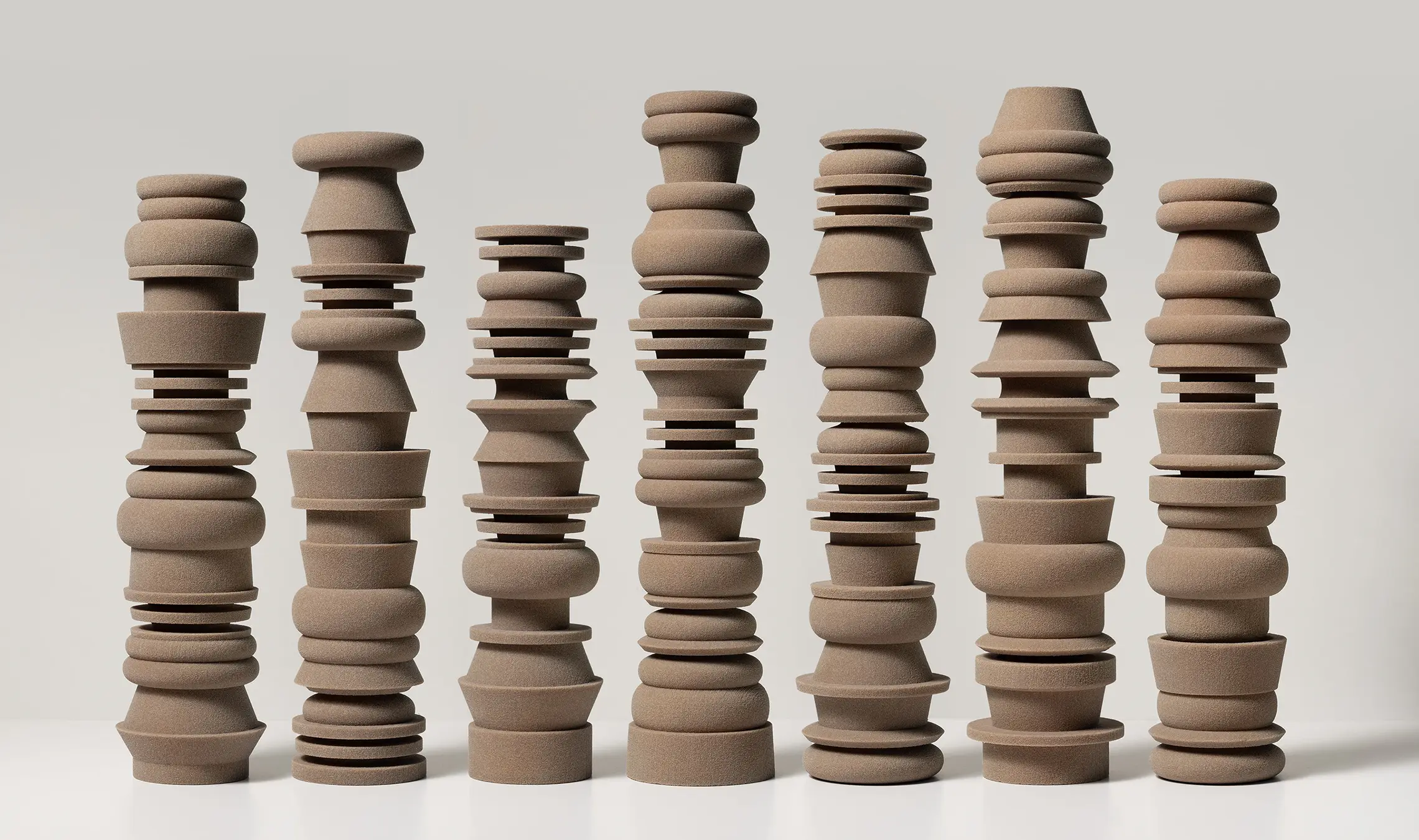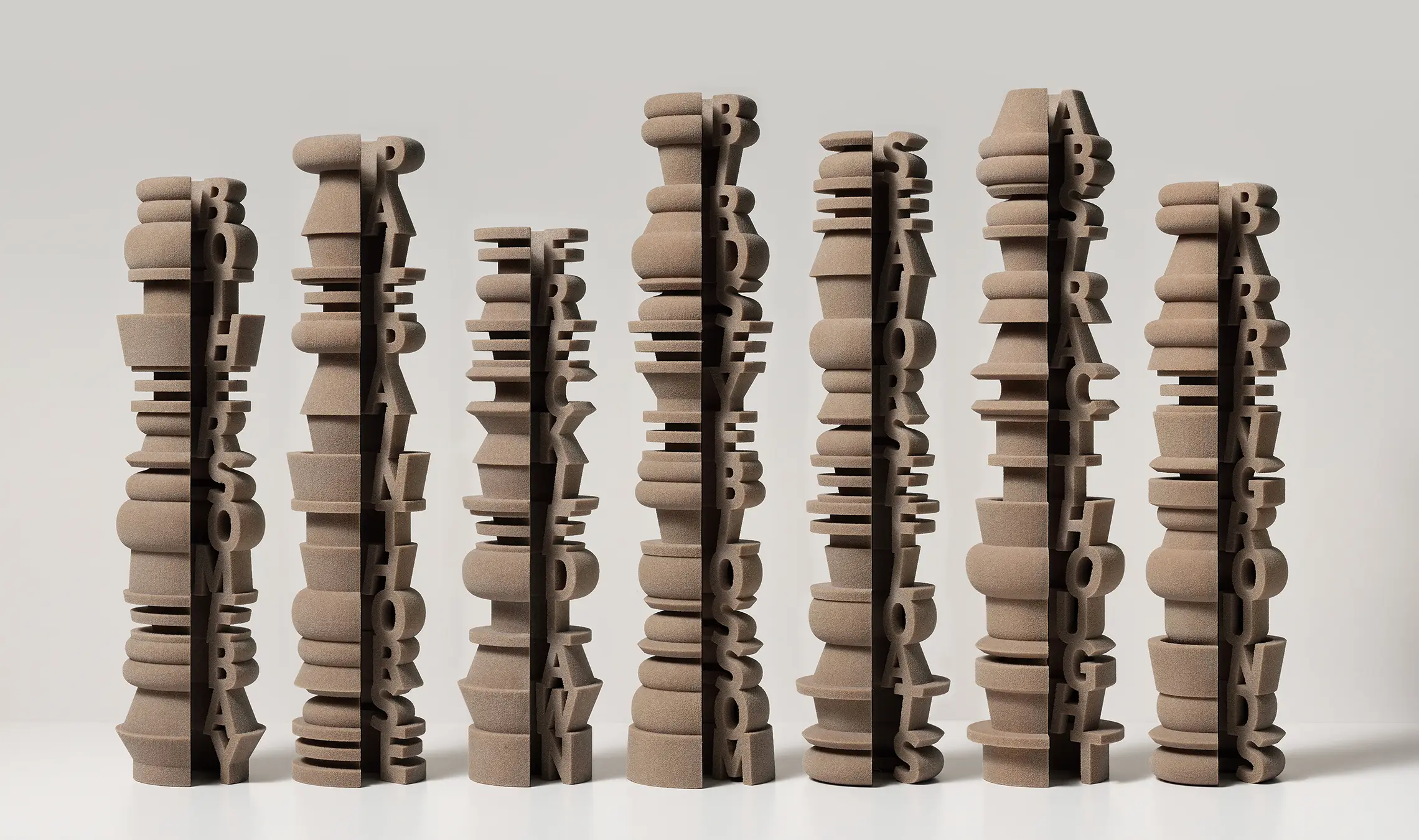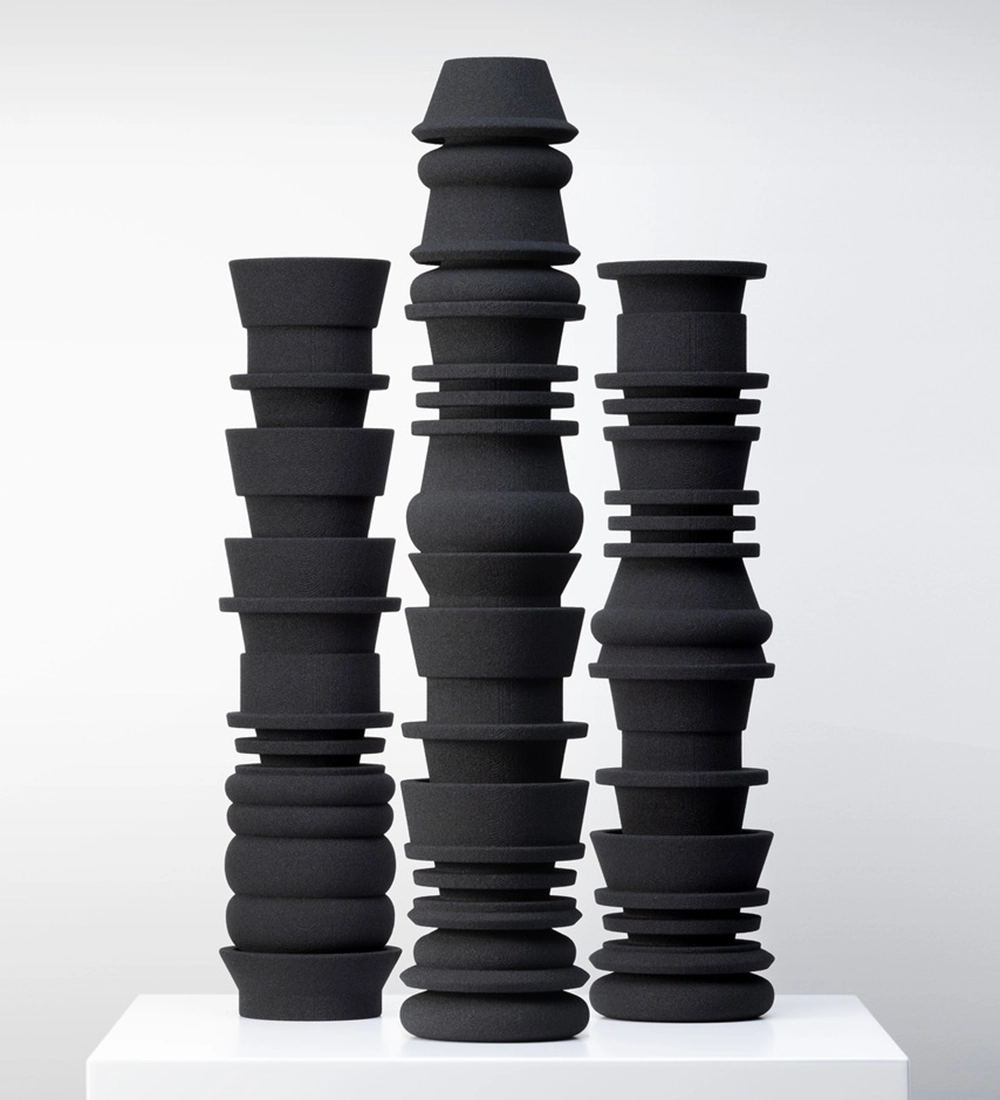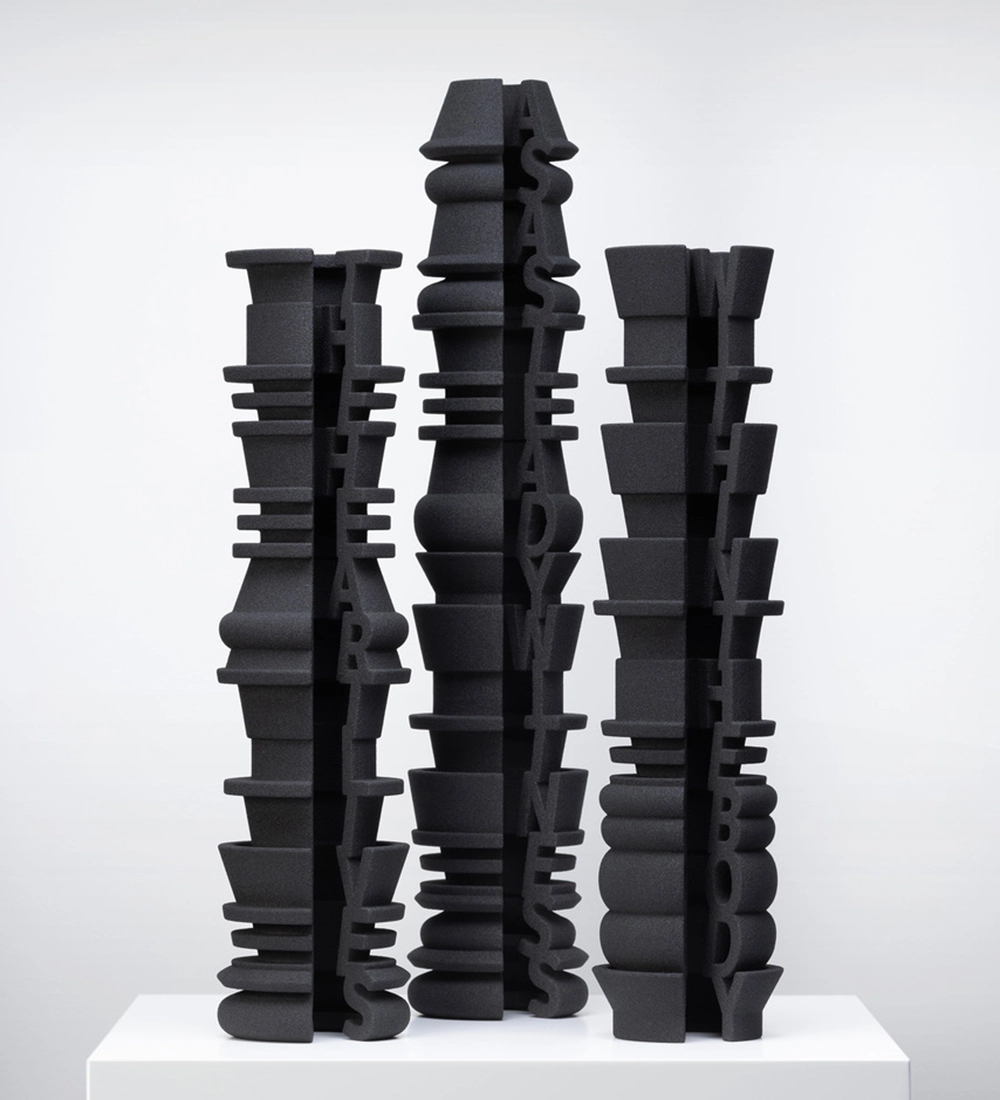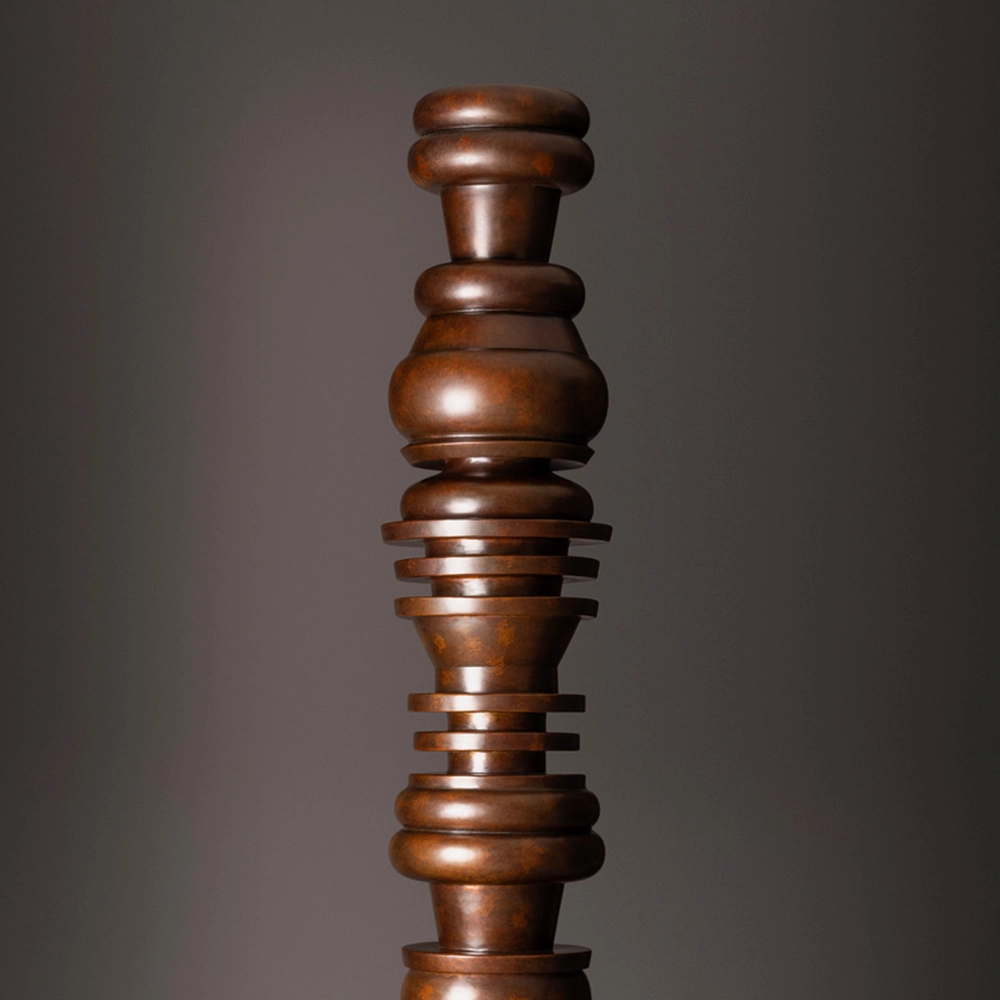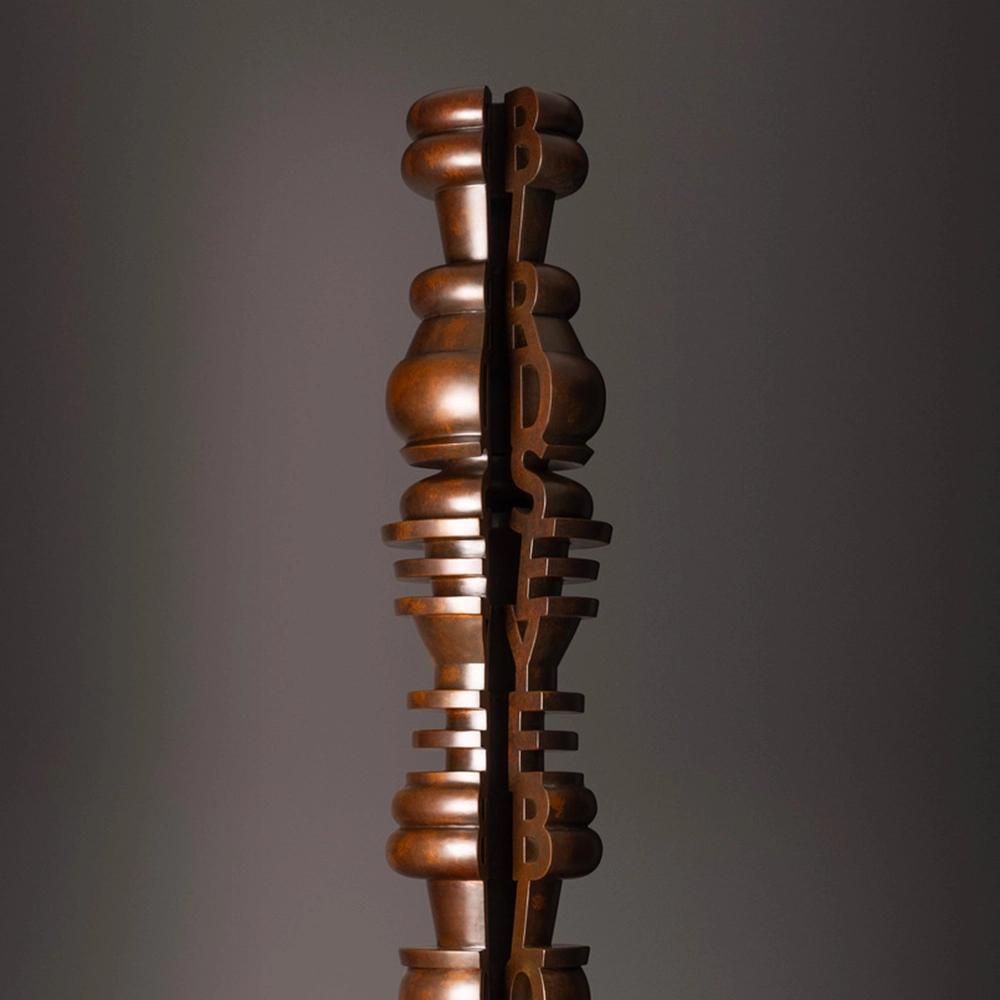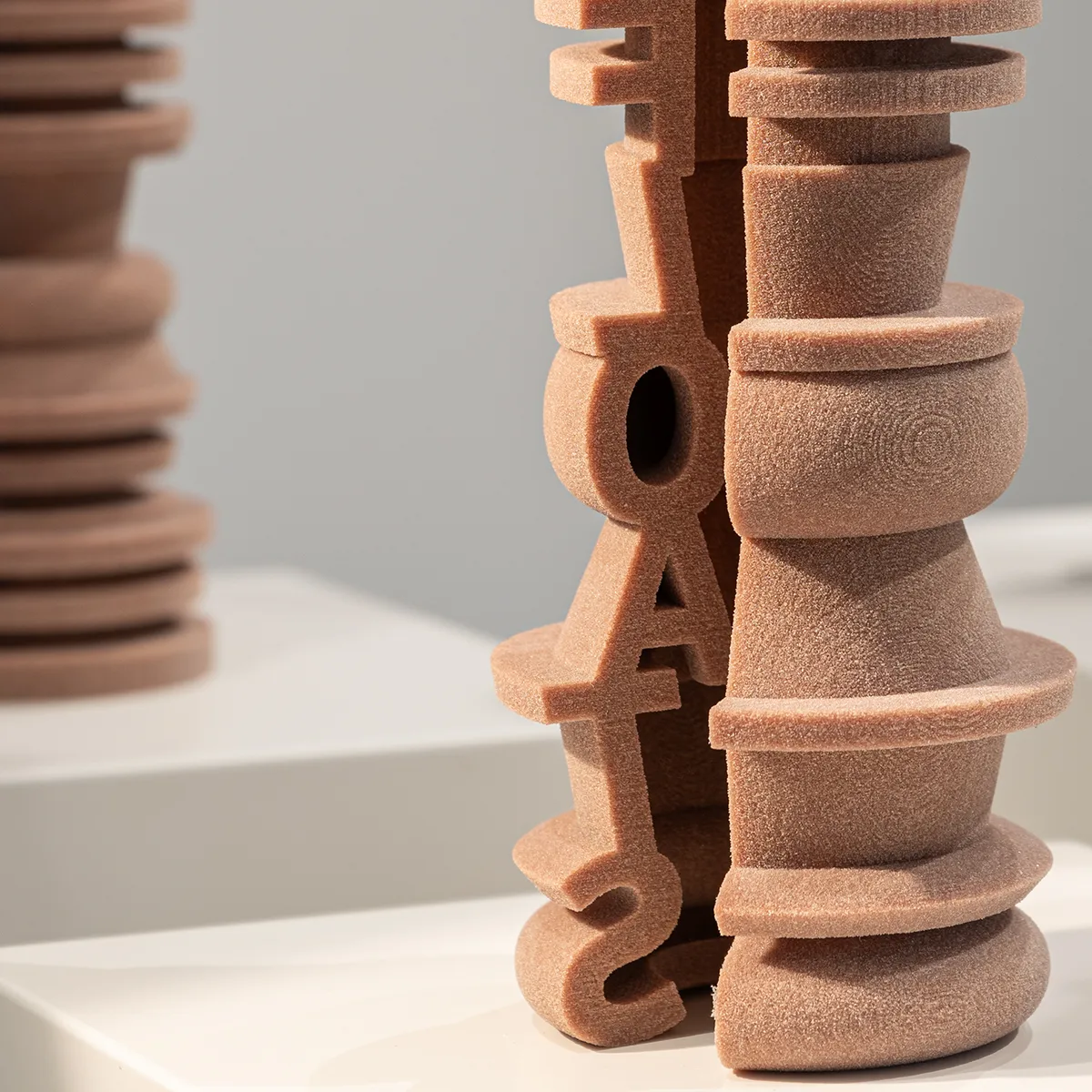
Sculptural Bree
The Wellington, New Zealand-based artist Anton Hart makes three-dimensional totem sculptures out of type. The font he uses almost exclusively? Bree, designed by Veronika Burian & José Scaglione.
“I am a sculptor, mainly a sculptor,” Anton Hart says of his work. “And I work digitally, so most of my work is created on the computer, and then sent to various manufacturers to be produced into works,” Hart explains.
For his series ‘Standing Songs,’ Hart worked with the poet Jenny Bornholdt to combine design with language in the form of totems. Hart, who previously worked as a graphic designer, sets Bornholdt’s words vertically in Bree, then spins them around an axis to create a three-dimensional totem, but one where he reveals the text as a cutaway.
“It’s kind of weird, you know. It’s a very simple thing, the profile of a letter, because that's what I’m dealing with,” he explains. “I’m dealing with the outside of the letterforms. But there is such a massive variation across typefaces, and Bree just seemed to have the right amount of forms, curves, angles that complemented the shapes of the totems.”
Once the word or words are chosen and designed, the file is sent to a manufacturer for 3-D printing, usually using a sand-based material or bronze.
“You’re definitely not used to looking at it this way. And it catches everybody out,” Hart explains. “The thing I love about them is that people don’t know what they’re looking at. The type is a section and the object that is a reveal. And I try not to reveal it too much.”